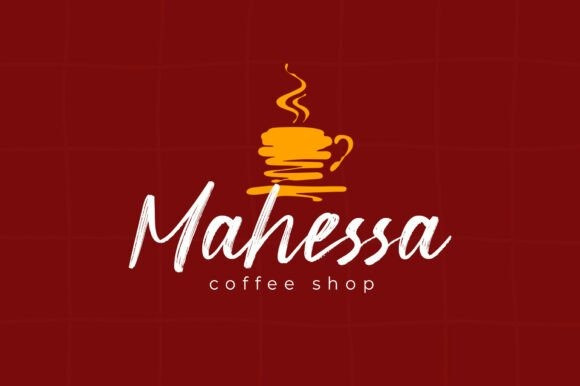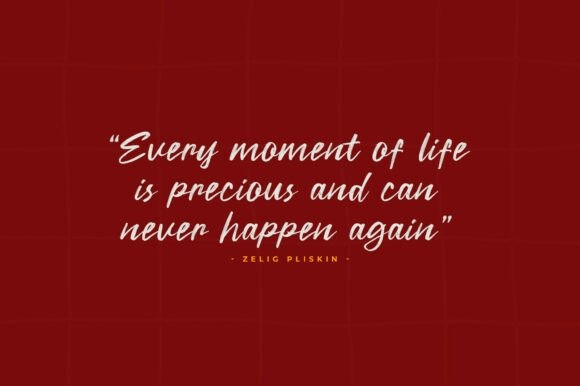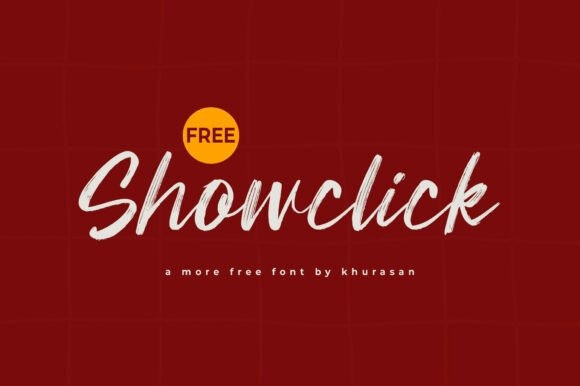
Showclick Brush Font
Showclick Brush Font is a modern script font perfect for posters, logos, magazines, book covers, banners, and many more! Get this amazing font, and use it to create lovely designs. It can easily be matched to an incredibly large set of projects, so add it to your creative ideas and notice how it makes them stand out!